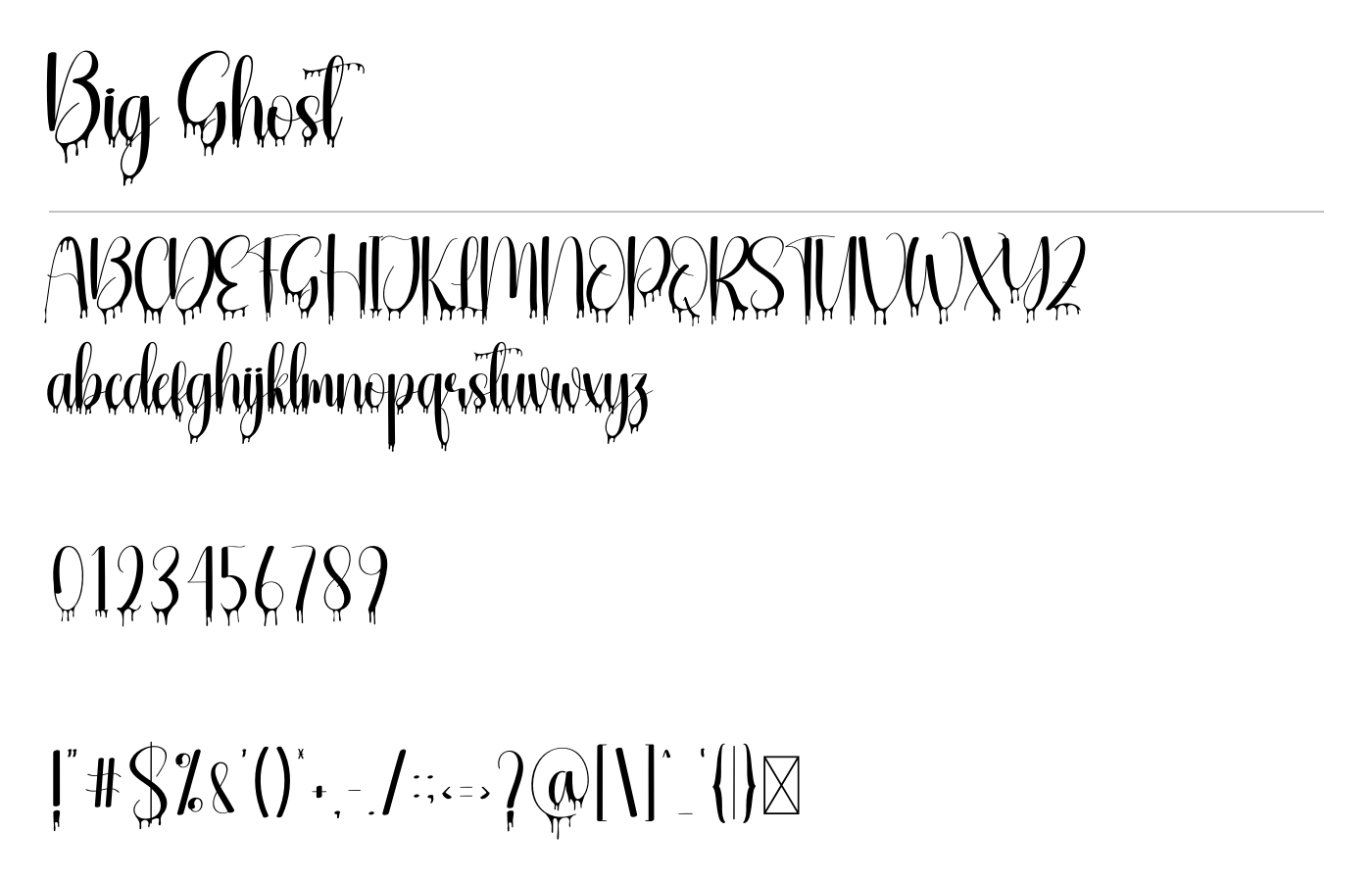
Big Ghost Font is a narrow, decorative script with tall, elegant letterforms that feature dripping effects, giving it a spooky, eerie vibe. Its playful yet slightly gothic style makes it perfect for Halloween themes, horror branding, or any design looking for a fun, haunting touch. This font works best in display settings like posters, invitations, and logos where its unique personality can stand out.
Big Ghost Font
About Big Ghost Font